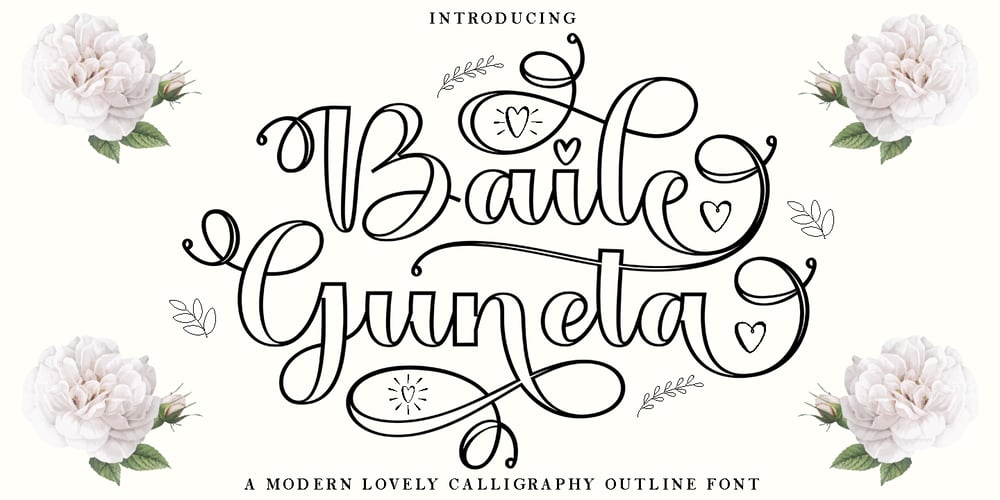
Baile Guneta Outline
Baile Guneta Outline font
Baile Guneta Outline Font Family was designed by Teuku Bustami and published by TM Type. Baile Guneta Outline contains 1 styles and family package options. Baile Guneta is an elegant calligraphy font Outline that comes with a very beautiful character change, a kind of classic decorative script with a modern touch, designed with high details to present an elegant style.Baile Guneta is attractive because the typeface is pleasing to the eye, clean, feminine, sensual, glamorous, simple and very easy to read, thanks to its many luxurious letter relationships. I also offer a decent number of stylistic alternatives for some of the letters. Classic style is very suitable to be applied in various formal forms such as invitations, labels, restaurant menus, logos, fashion, make up, stationery, novels, magazines, books, greeting/wedding cards, packaging, labels or all kinds of advertising purposes and many others. ..Thanks & Happy Designing!